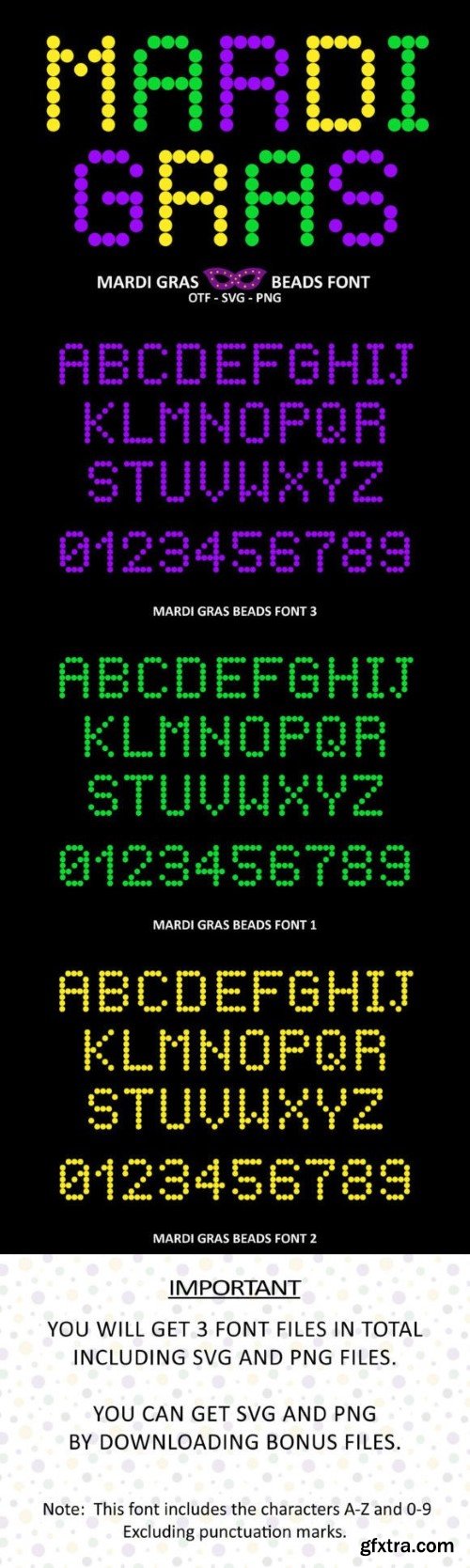
玛雅娜贝斯字体
Introducing the “Mardi Gras Beads” – a fun and festive color font. Each letter is decorated with a beautiful circle beads-shaped symbol, which is perfect for all your Mardi Gras Festival-themed projects. You can use it to design products such as banners, content, mugs, cards, shirts, stationery, social media posts, and more!